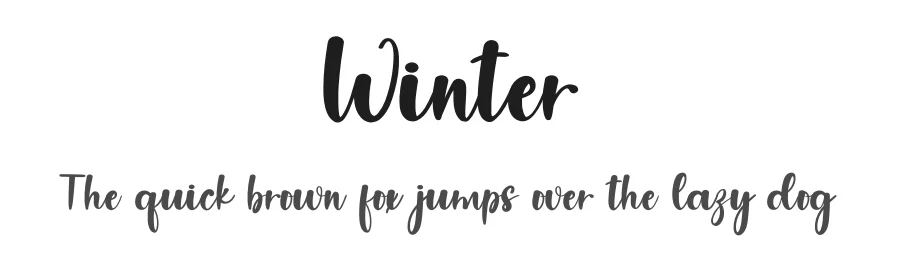
About Homes Honey Font
| Designer | Mulia Yanto |
Homes Honey Font is a script font that shines as a display or heading face. Pair it with a clean sans-serif or serif font for body text β the contrast creates a clear hierarchy while the two styles stay balanced and easy to read.